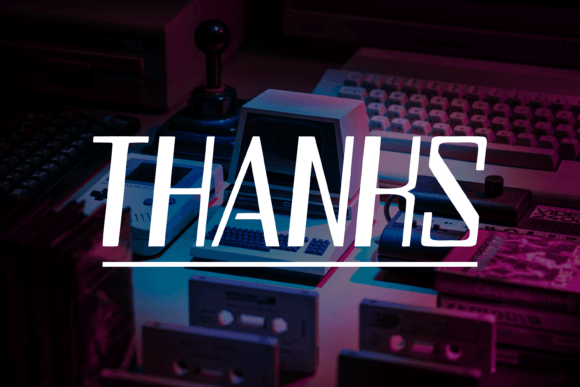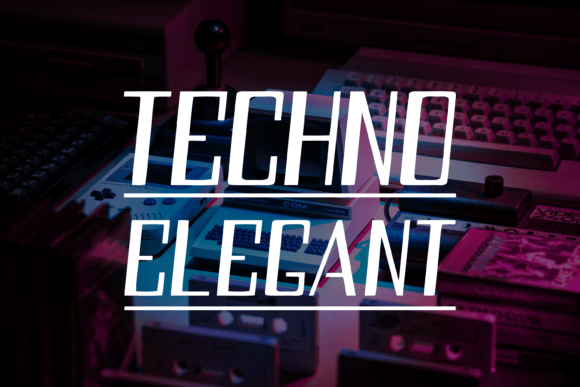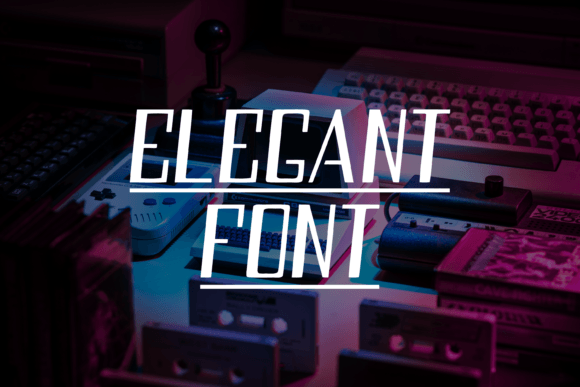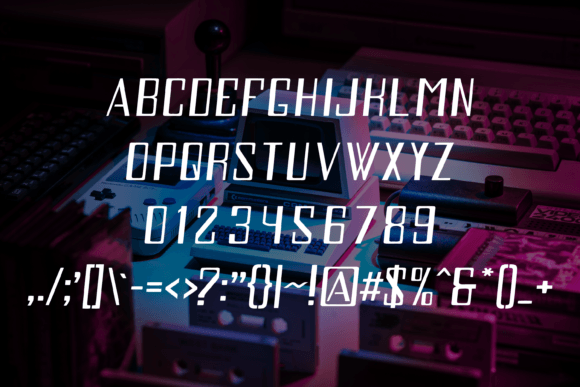
Introduction to Rogotanic Font
Have you ever been in the midst of a creative project, staring at a blank canvas, and suddenly the perfect font pops into your head? It’s that ‘aha’ moment that makes all the difference between a good design and a great one. For many designers, finding the right font can be a daunting task, but what if I told you there’s a high-quality display font that’s sure to elevate your next creative project?
Enter the Rogotanic Font, a modern and stylish design resource that’s perfect for any project. With its sleek lines and versatile style, this font has the potential to add a touch of sophistication to even the most mundane designs. Whether you’re working on a graphic design project, creating a logo, or simply looking for a unique font to add some flair to your social media posts, the Rogotanic Font is an excellent choice.
Key Features of Rogotanic Font
- High-quality, unique design for creative projects and design resources
- Unique, hand-crafted design elements and lettering styles
- Perfect for use in graphic design, digital art, and typography-based projects
Honest Review: Rogotanic Font
I recently came across the Rogotanic Font, a free download that’s been making waves in the design community. As a designer, I’m always on the lookout for high-quality design resources that can elevate my creative projects. In this review, I’ll share my honest thoughts on what works well and what doesn’t.
- Unique aesthetic: The Rogotanic Font boasts a distinctive, futuristic style that’s perfect for projects that require a bold, attention-grabbing look.
- Limited character set: While the font has a wide range of letters and symbols, it’s not a complete font family, which may limit its use in certain projects.
- No bold or italic styles: The Rogotanic Font is only available in regular style, which may not be ideal for projects that require emphasis or emphasis.
Overall, the Rogotanic Font is a solid addition to any designer’s toolkit. Its unique style and high-resolution graphics make it a great choice for creative projects, especially those that require a futuristic or sci-fi aesthetic. While it has some limitations, it’s a free download, making it a valuable resource for designers on a budget.
Some common use cases for the Rogotanic Font include creating logos, social media graphics, and presentations. Tips for getting the most out of the Rogotanic Font include experimenting with different font sizes and styles, and combining it with other design elements to create a cohesive look.